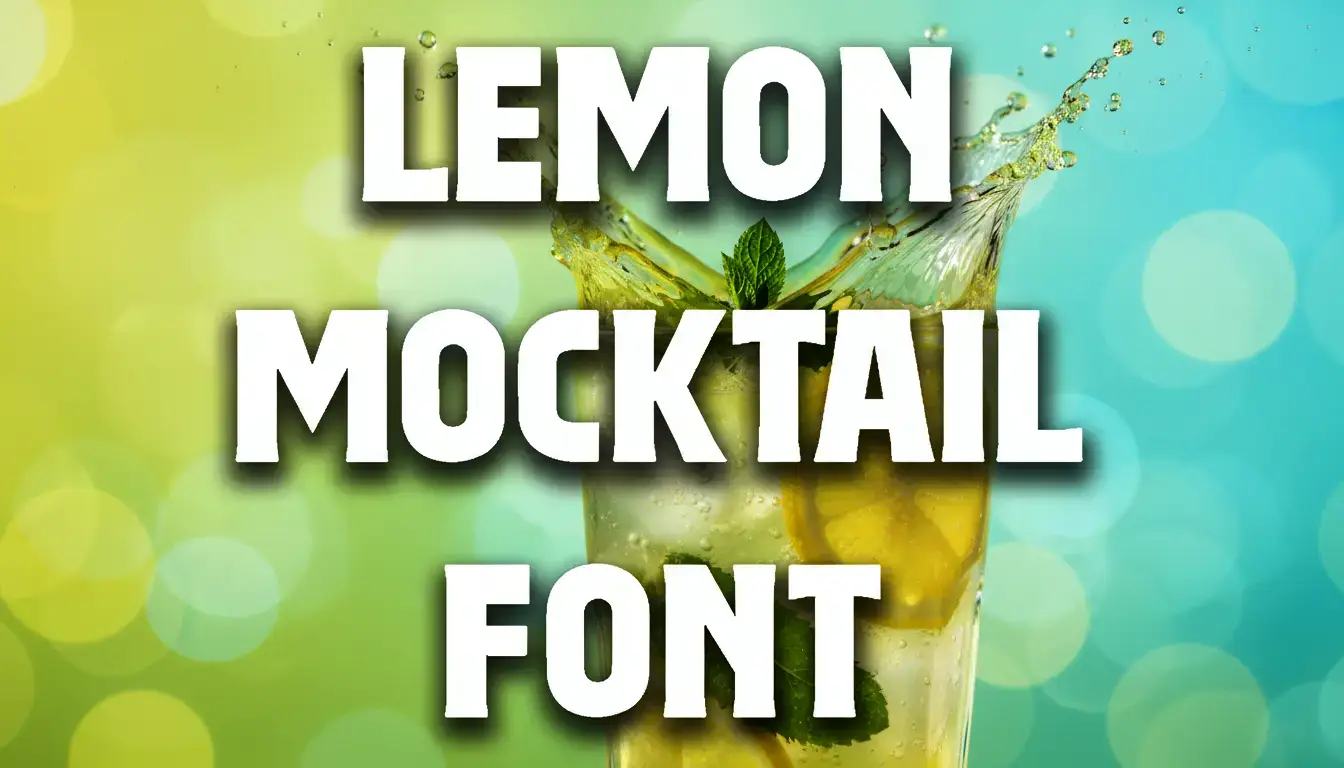
Lemon Mocktail Font
Lemon Mocktail is a fancy font created by Muhamad Fikry Nuralif. Bold and full of character, it's built to stand out rather than blend in. You can download it for free and test it with your own words in the preview above.
What You Can Type With Lemon Mocktail
You get every letter from A to Z in both cases and all the numbers from 0 to 9, which means Lemon Mocktail can handle full sentences, dates and prices. Common punctuation such as &, !, ? and @ is included as well. It also has the accented letters you need for Spanish, French, German, Portuguese and Italian.
Where Lemon Mocktail Works Best
Think of Lemon Mocktail for posters, logos and eye-catching headlines. Use it for one standout word or headline and let simpler fonts handle the rest.
Does Lemon Mocktail support accented letters?
Yes. Lemon Mocktail includes the accented letters needed for Spanish, French, German, Portuguese and Italian, so it works for more than just English.